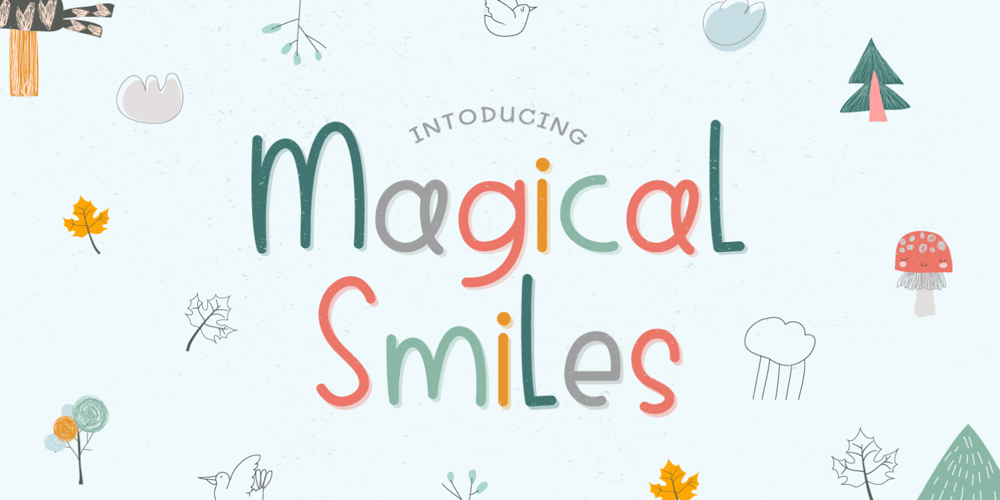
Magical Smiles Font Family was designed by Miftahul Habib and published by Tlatous Type. Magical Smiles contains 1 styles and family package options. Introducing Magical Smiles by Tlatoustype A fancy and fun handcrafted font that create to impress your audience and make your branding shine.Make your projects dance with this elegant and wonderful font wherever you use it. Use it for yourheadings, logos, ads, printed quotes, packaging, and even your website or social media branding.